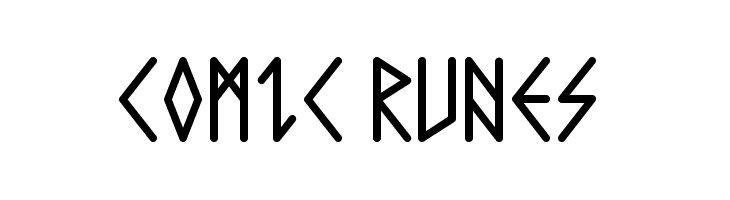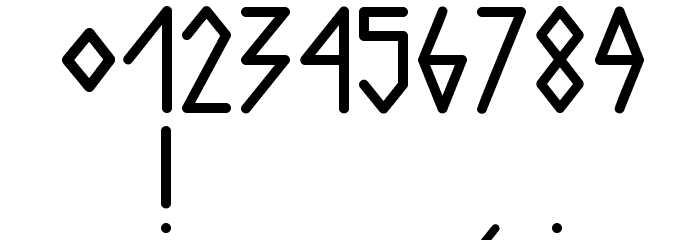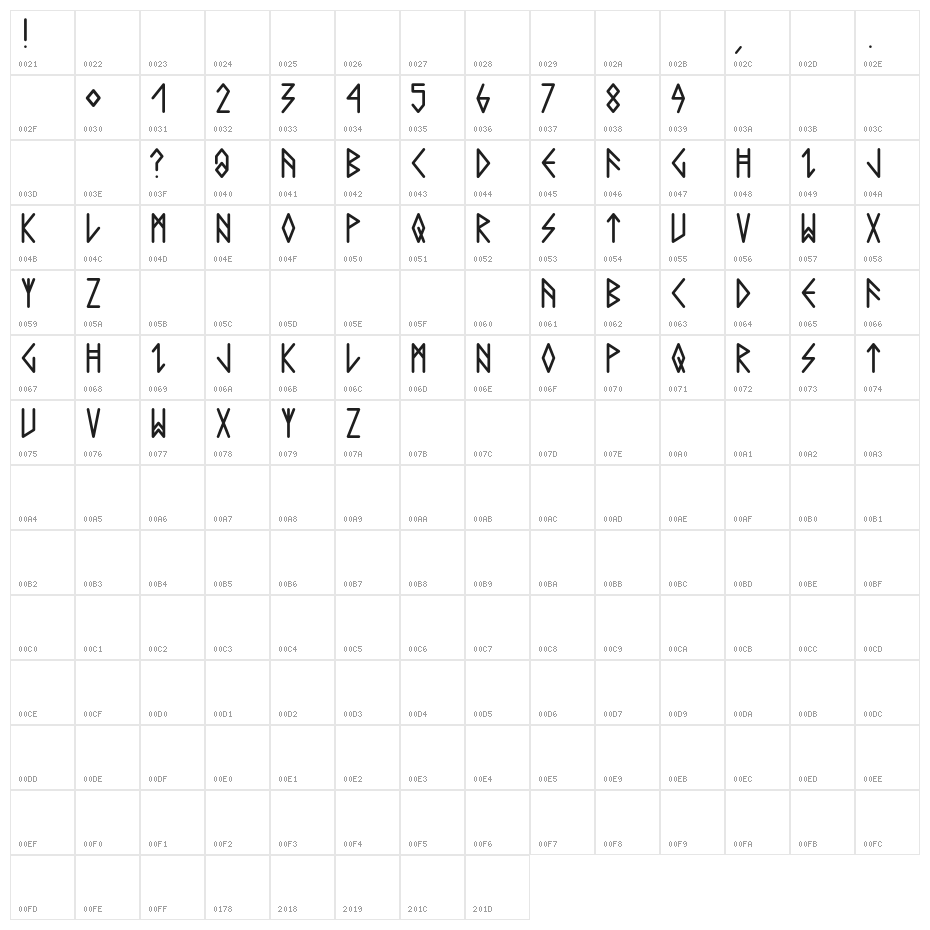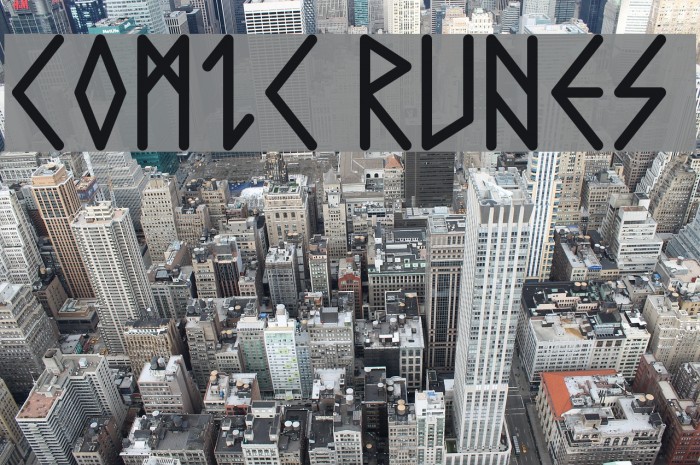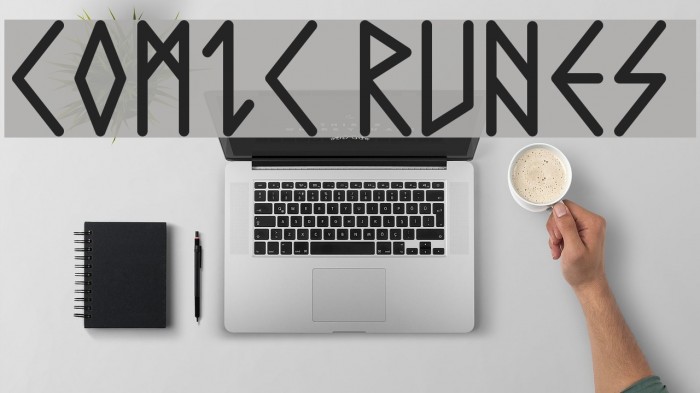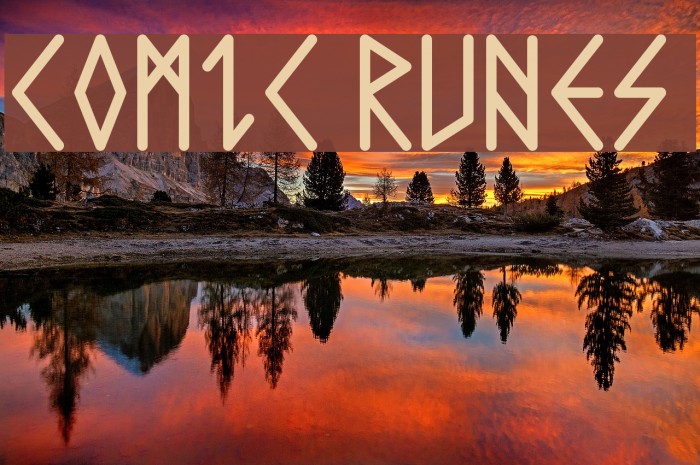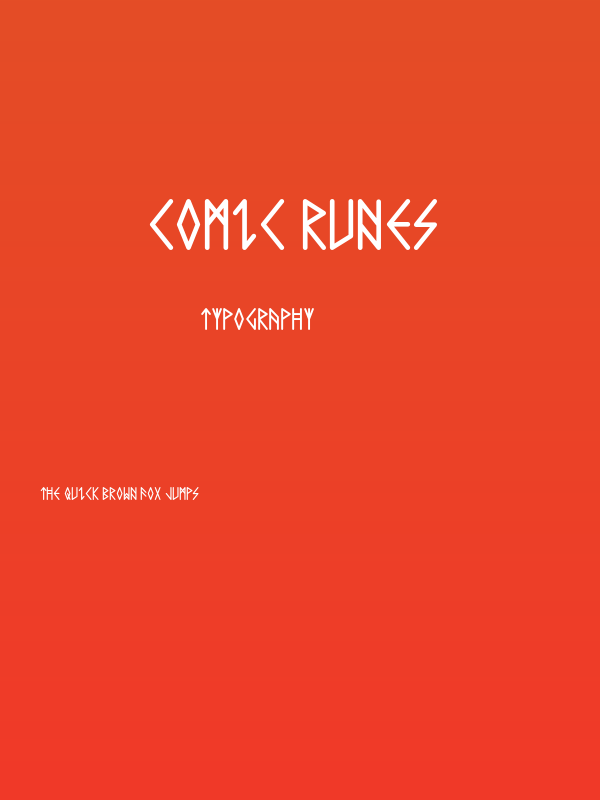
Comic Runes Font
Comic Runes Description
This font features a unique blend of comic and runic styles, characterized by angular and geometric shapes that mimic ancient runes while maintaining a playful, modern twist. The characters are bold and striking, with consistent line thickness that gives a uniform appearance. The uppercase and lowercase letters share similar design elements, enhancing the cohesive look. Numbers and special characters are crafted with the same attention to detail, ensuring they fit seamlessly with the alphabet. This font's distinct style makes it ideal for projects that require a touch of whimsy and historical flair.